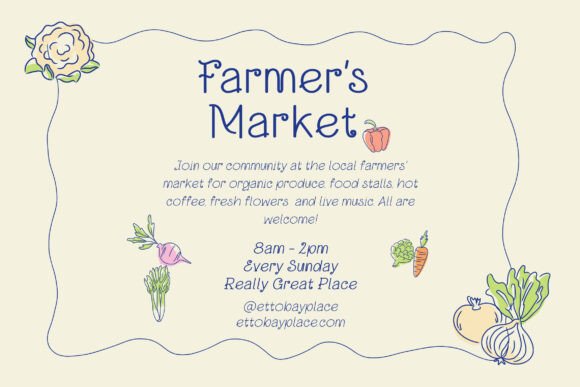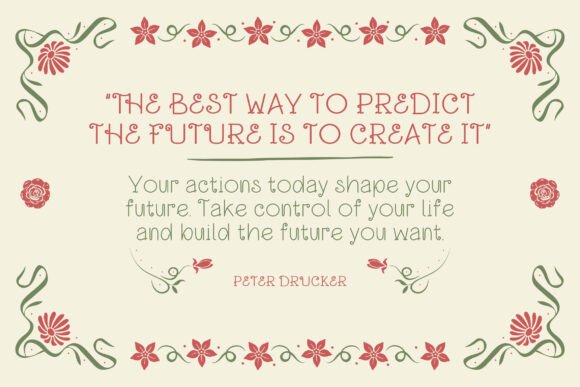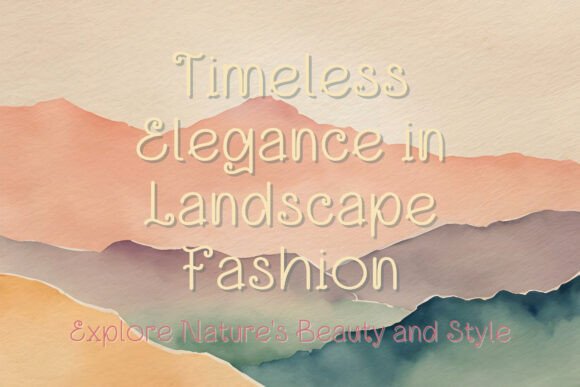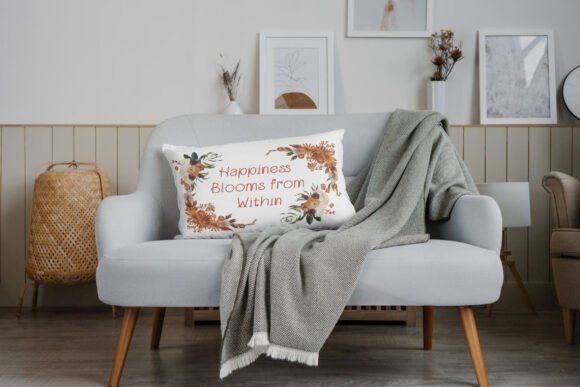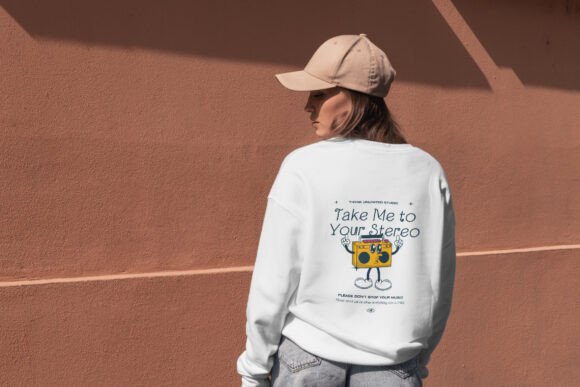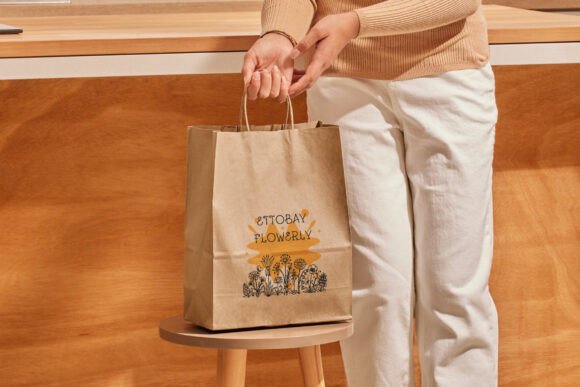
Blossoming Creativity with the Ettobay Font
As a designer, have you ever felt inspired by the delicate petals of a flower or the rustic charm of a forest? For me, it’s the moment when the sun breaks through the morning mist, casting a warm glow on the lush greenery around me. It’s a moment of pure creativity, where the boundaries of design seem to fade away, and the possibilities are endless.
That’s exactly what the Ettobay Font aims to capture – the essence of nature’s beauty and the freedom to let your imagination bloom. This stunning typeface, available in four versatile styles, is designed to adapt effortlessly to a variety of creative projects, from delicate floral-themed designs to bold nature-inspired branding.
Whether you’re working on a branding project, a magazine headline, or a wedding invitation, the Ettobay Font brings a touch of freshness and sophistication to your design. Its organic curves and flowing strokes evoke a sense of vitality and elegance, making it an invaluable asset for designers looking to add a unique touch to their work.
Ettobay Font Key Features
- Font Family: Ettobay Font offers a range of font styles including regular, bold, italic, and bold italic.
- Unique Characteristic: The font features a unique blend of modern and traditional elements, making it perfect for designs that require a touch of sophistication and elegance.
- Language Support: Ettobay Font supports multiple languages, including English, Spanish, French, German, Italian, and many more.
Ettobay Font Review
I recently had the chance to work with the Ettobay font, and I must say, it’s an interesting addition to any design project. ✨ One thing I like about Ettobay is its unique blend of modern and vintage elements, which can add a touch of sophistication to any text-based design. The font’s geometric shapes and clean lines make it perfect for titles and headings.
Another aspect of Ettobay that I appreciate is its versatility. It comes in multiple weights and styles, making it easy to create a consistent visual identity across different platforms and mediums. ✨ Additionally, the font’s legibility is excellent, even at smaller sizes, which is essential for digital applications.
While Ettobay has many strengths, there are a few areas where it falls short. ⚠️ For instance, the font’s x-height is slightly smaller than average, which can make it more challenging to read at a glance. Additionally, the font’s italic and oblique styles are not as refined as its regular counterpart, which can affect overall readability.
Overall, I think Ettobay is a solid choice for designers looking for a unique, modern font with a vintage twist. While it may not be perfect, its strengths far outweigh its limitations, making it a great addition to any design toolkit.
Recommendation
I would recommend Ettobay to designers working on projects that require a distinctive, high-end look. However, I would caution against using it for body text or extended passages, as its limitations can become more apparent in these contexts.
Rating
I would give Ettobay a solid 4 out of 5 stars. While it’s not a perfect font, its unique strengths and versatility make it a valuable addition to any designer’s arsenal.
Recommendation for Use
- Titles and headings
- Logos and branding
- Editorial and publishing projects
- Graphic design and visual identity projects
Ettobay Font pairs well with minimalist designs and adds a touch of elegance to headings and titles.
Ettobay Font is ideal for creating stylish headings and titles in graphic designs.
Ettobay Font adds a touch of sophistication to presentations and documents.